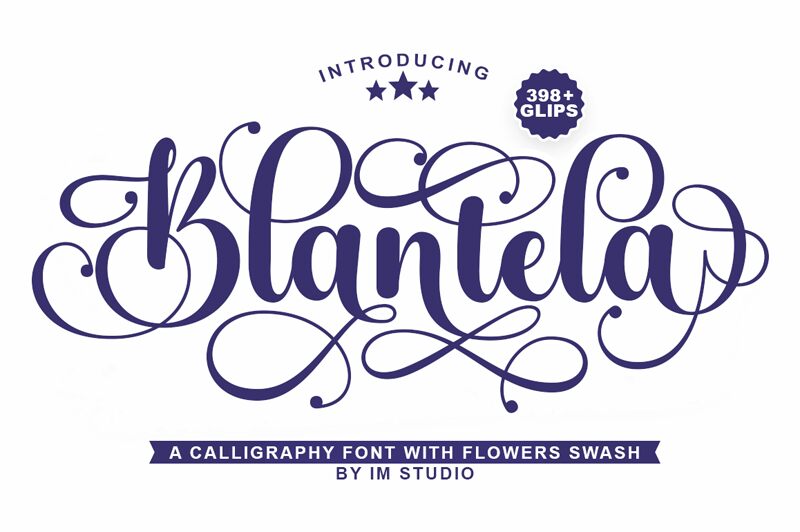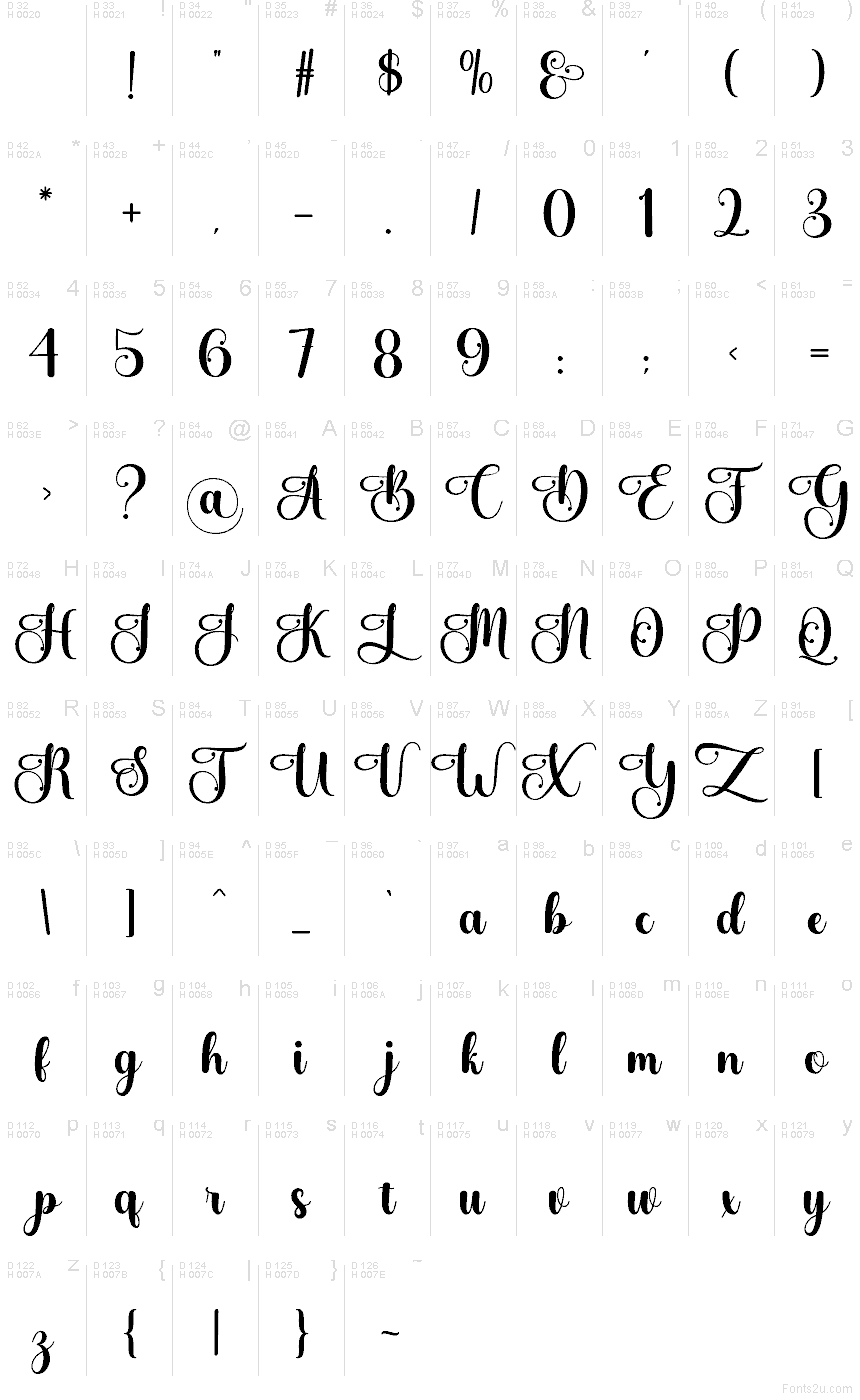
Blantela
Blantela font by IM Studio is a free calligraphy typeface with lush, looping strokes that feel like they were painted with a loaded brush. The letters swell and taper in smooth, inky curves, with playful bounce and generous swashes that instantly read as romantic and handcrafted. It’s bold enough to hold its own on small labels yet graceful enough for large, flowing headlines where every curve can breathe.
Using Blantela, your text naturally turns into a signature moment—great for wedding invitations, save‑the‑dates, boutique logos, beauty packaging, greeting cards, and social media quotes. This free font shines when you give it space and pair it with a clean sans serif for body copy, letting Blantela handle the flourishes while the companion font keeps everything readable.